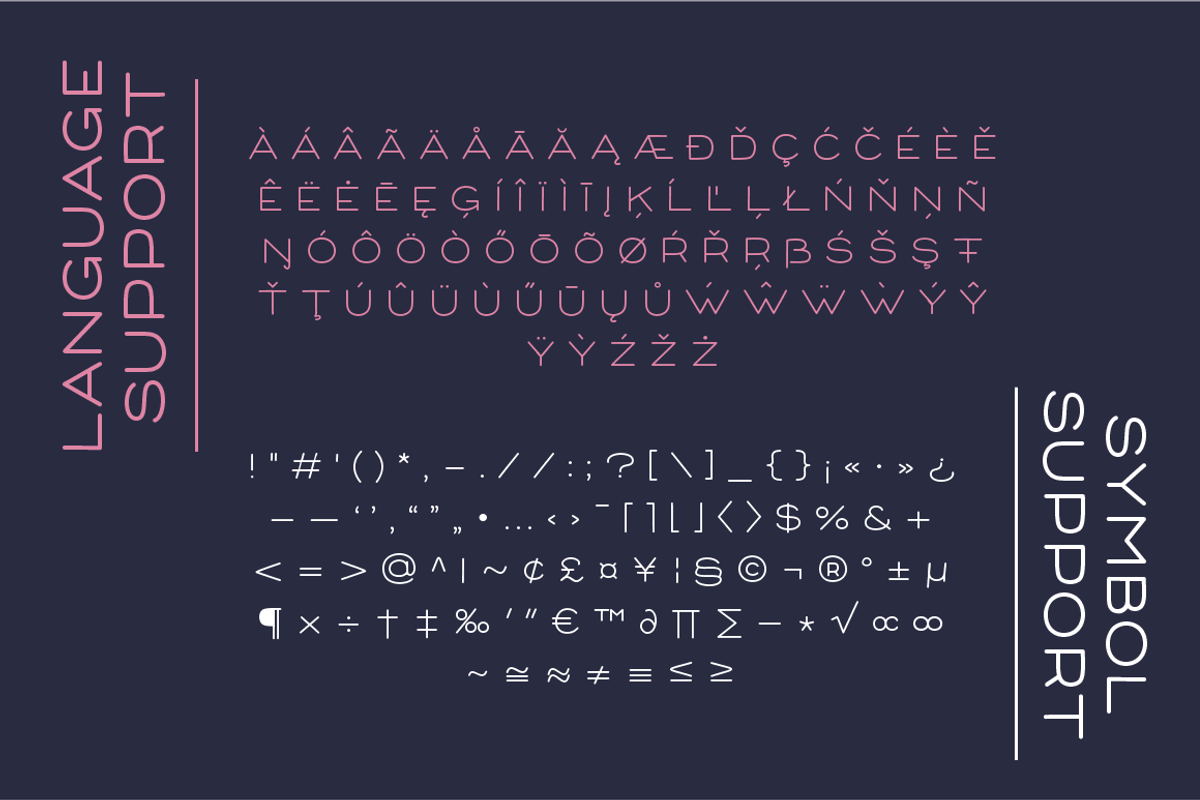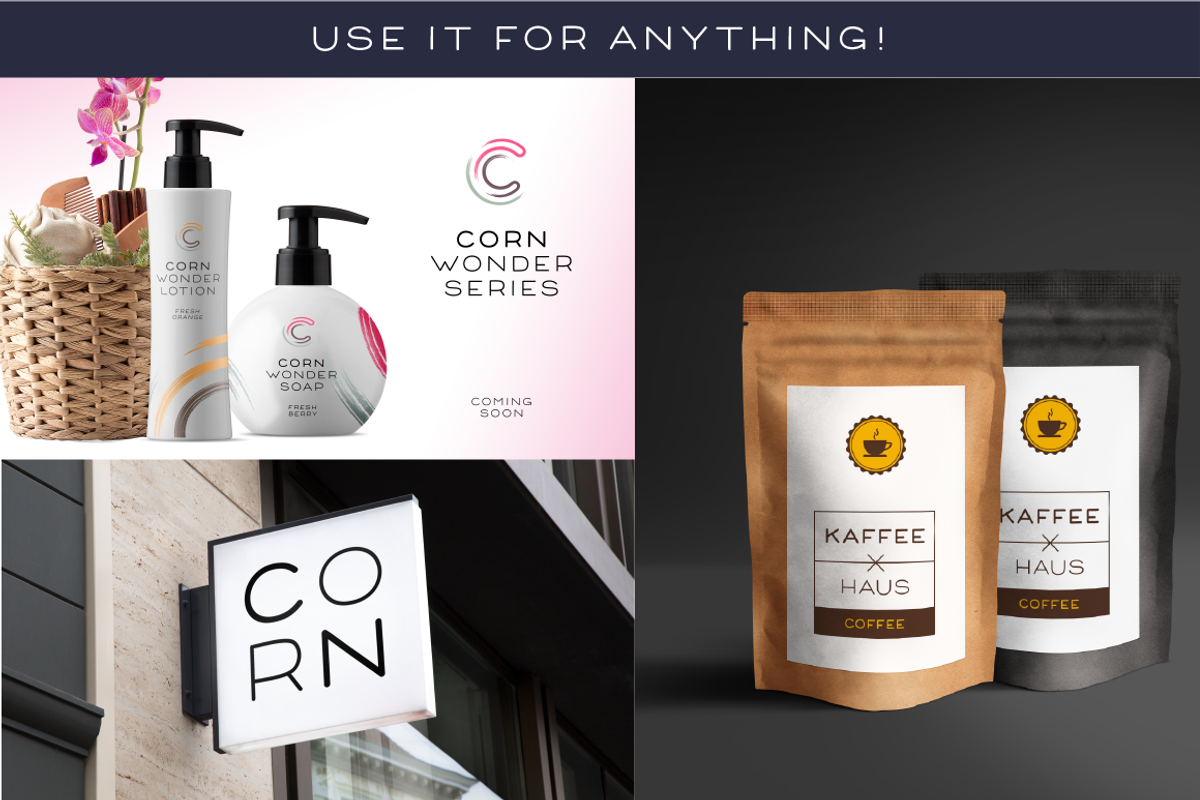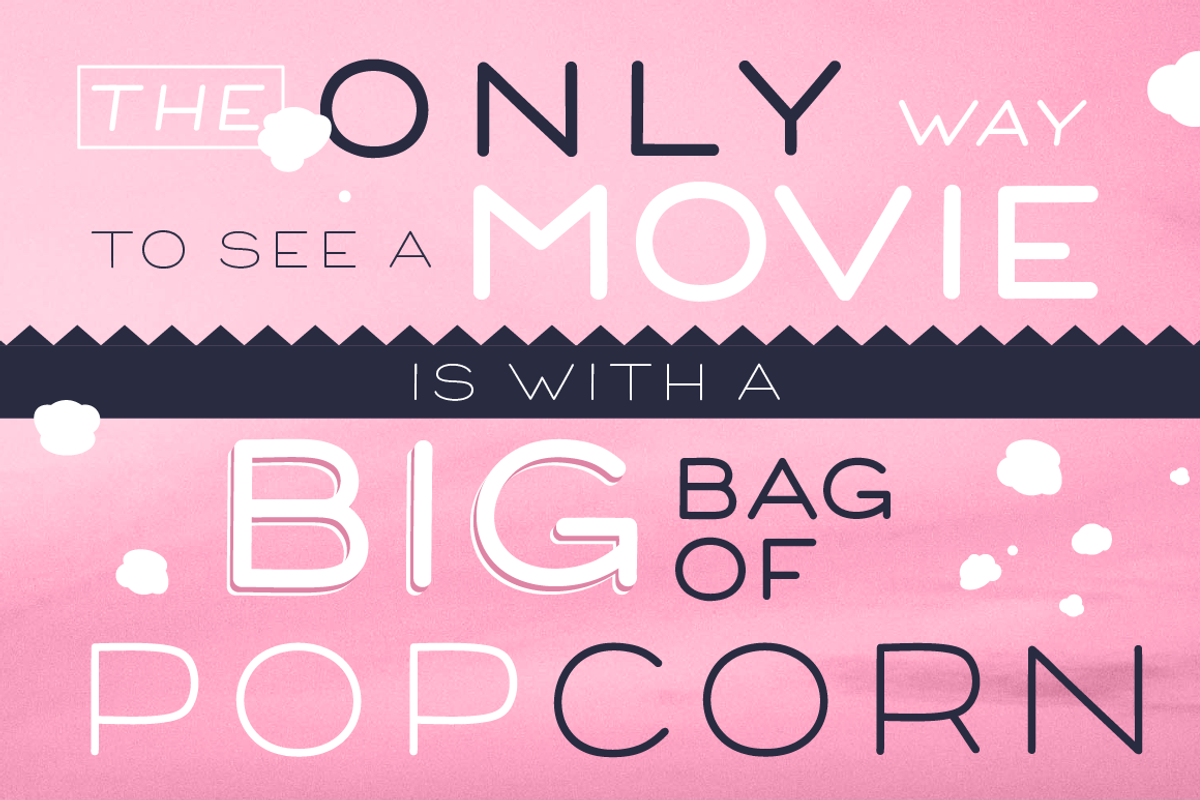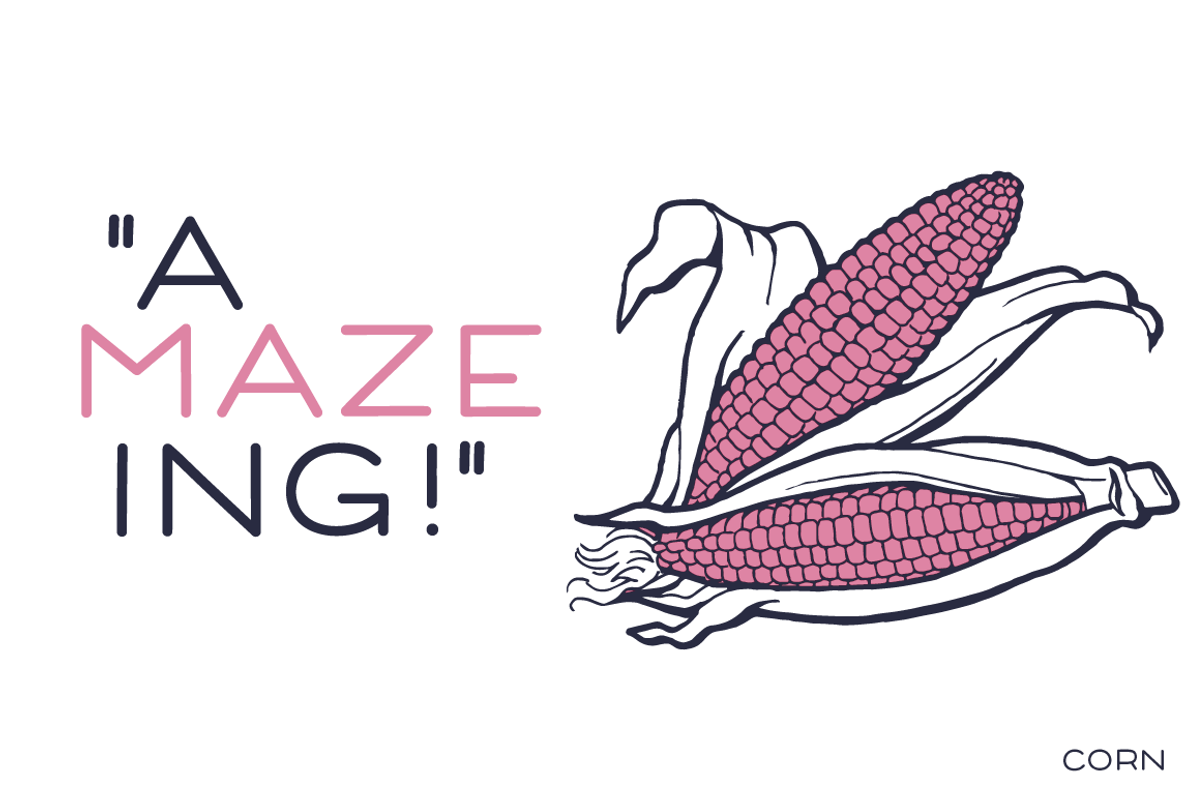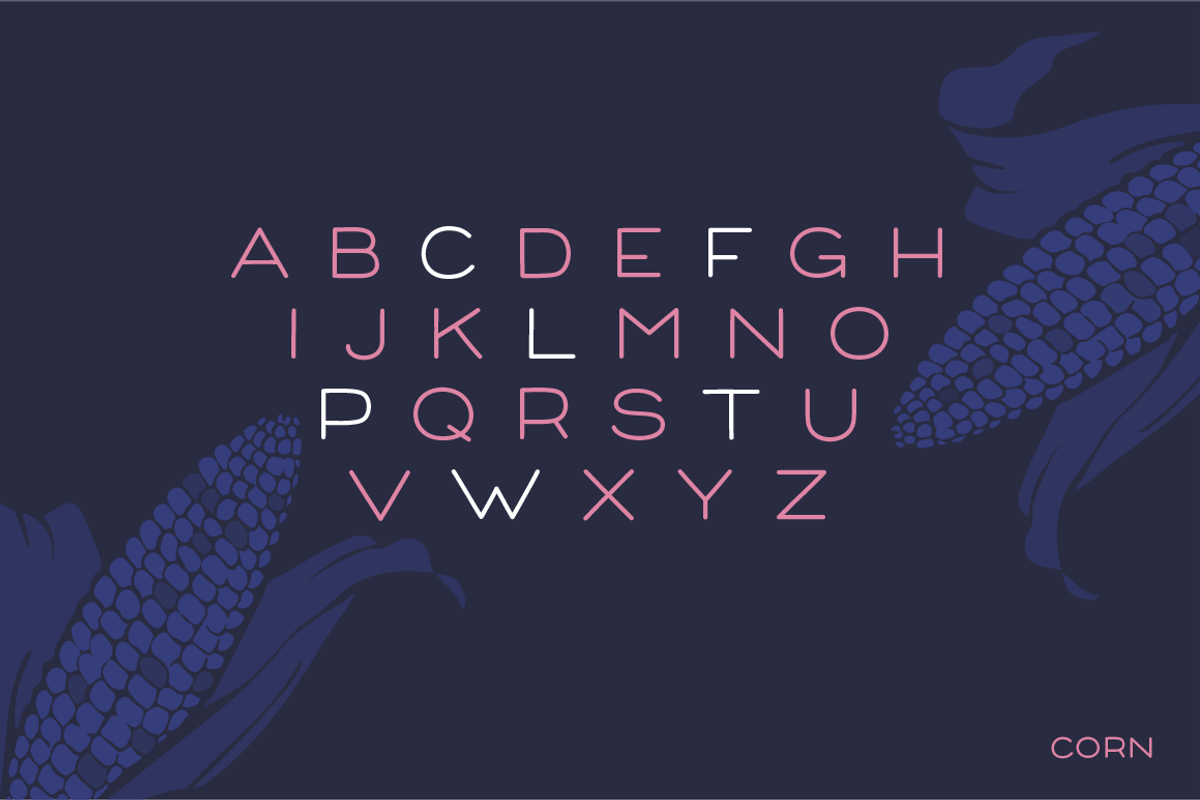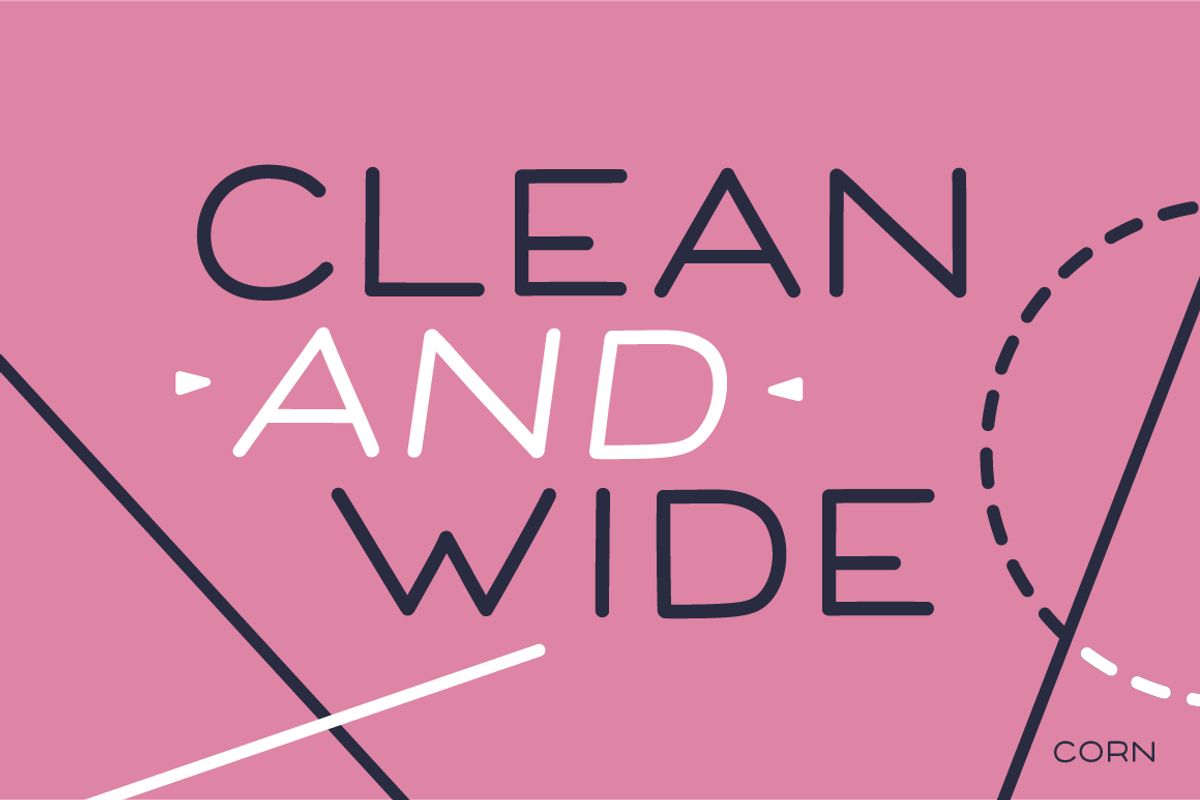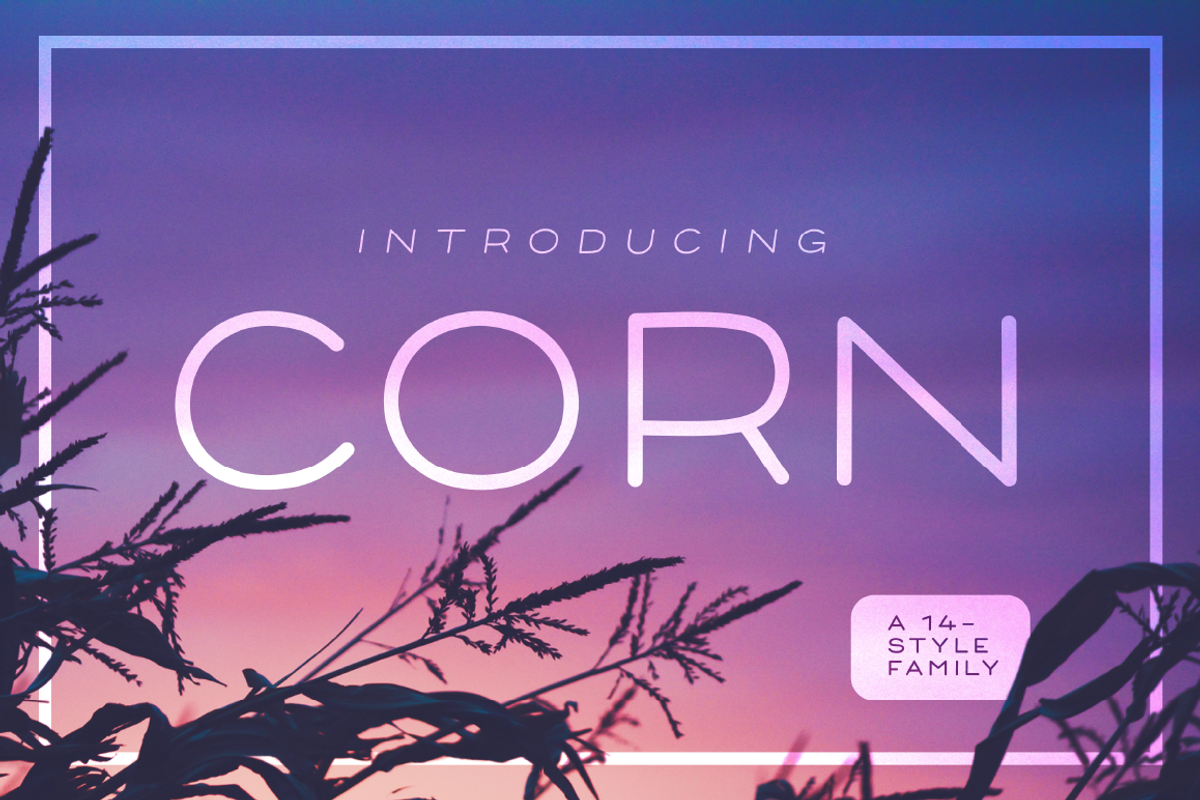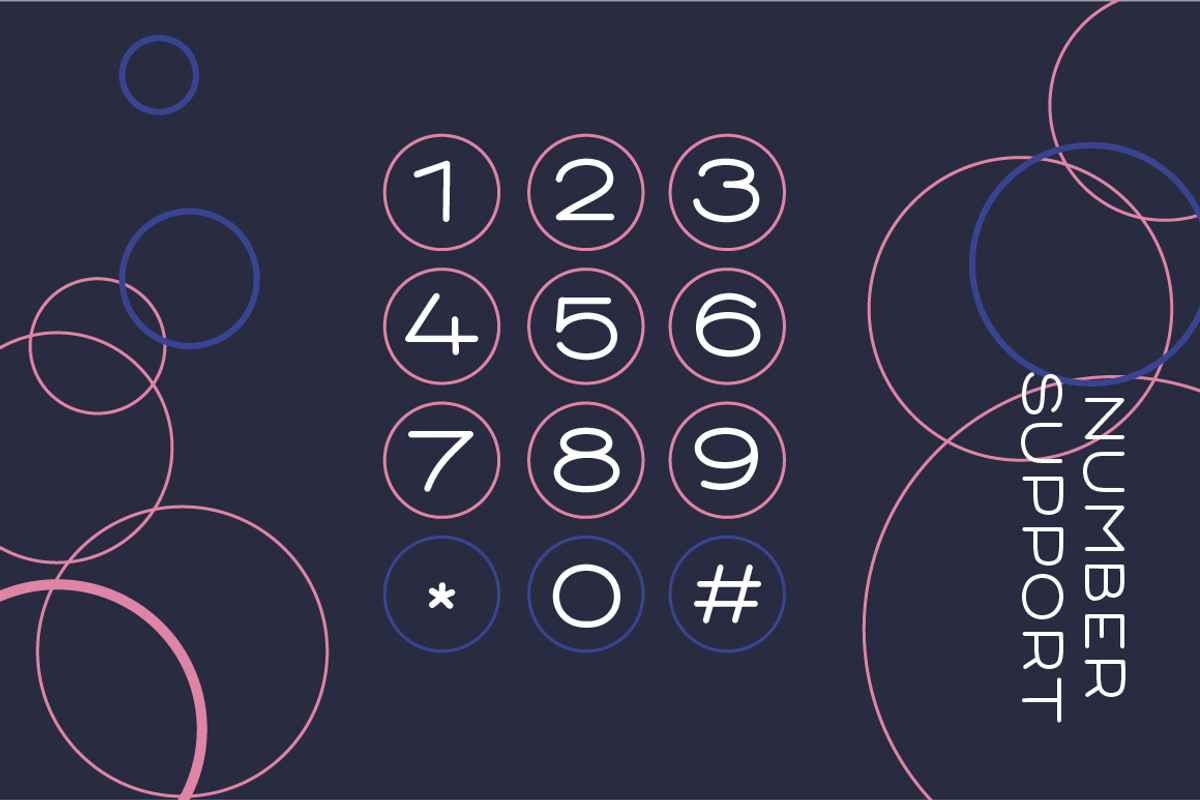
Corn - A 14 Style Family
Corn - A 14 Style Family by Shaped Fonts is a font selected for branding, posters, packaging, typography.
Why Corn - A 14 Style Family is worth a look
Corn - A 14 Style Family by Shaped Fonts fits naturally into Branding, posters, packaging, typography.